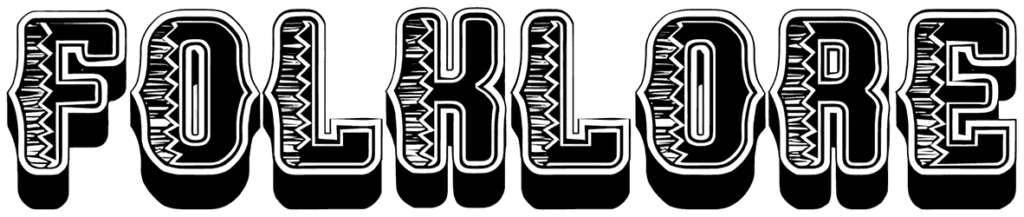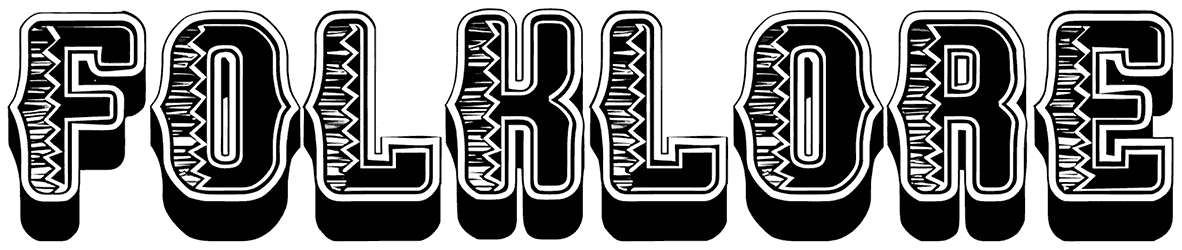
Folklore Font
To decorate any vintage TV program, album covers, wedding cards, or even design apparel, you call for a fresh decorative font with a traditional and appealing sense that will captivate any viewer at first glance. Folklore is exactly what you need for historical illustration that needs a retro touch.
Since this retro font deprived us of lowercase letters and numbers, instead, its antique face would move mountains, topping many displays.